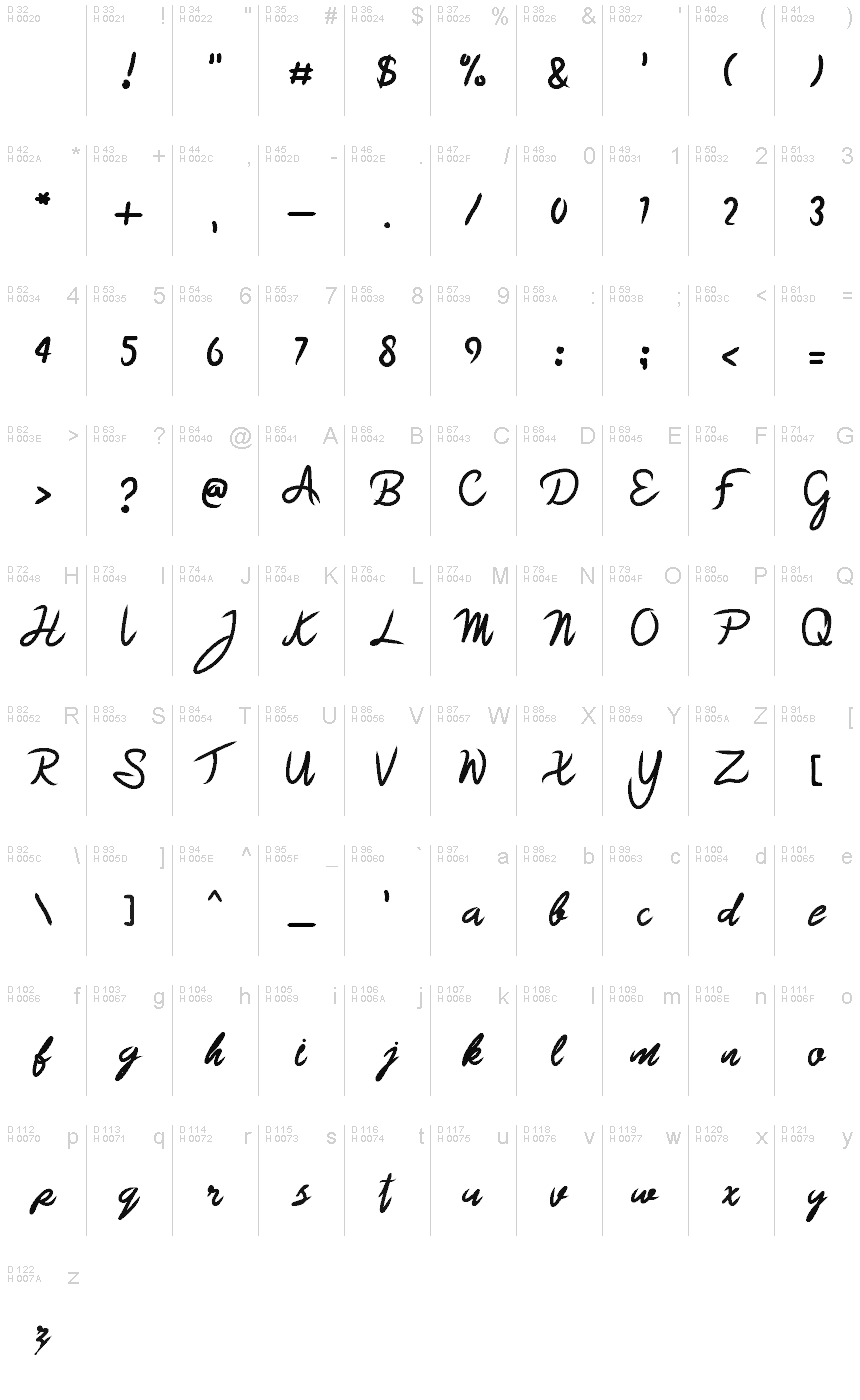
Brazillian
Brazillian is a classy, elegant and super stylish modern calligraphy font with natural handwriting movements.
This is perfect for many different projects such as logos & posters, invitations, banner designs, bussines cards, and more!